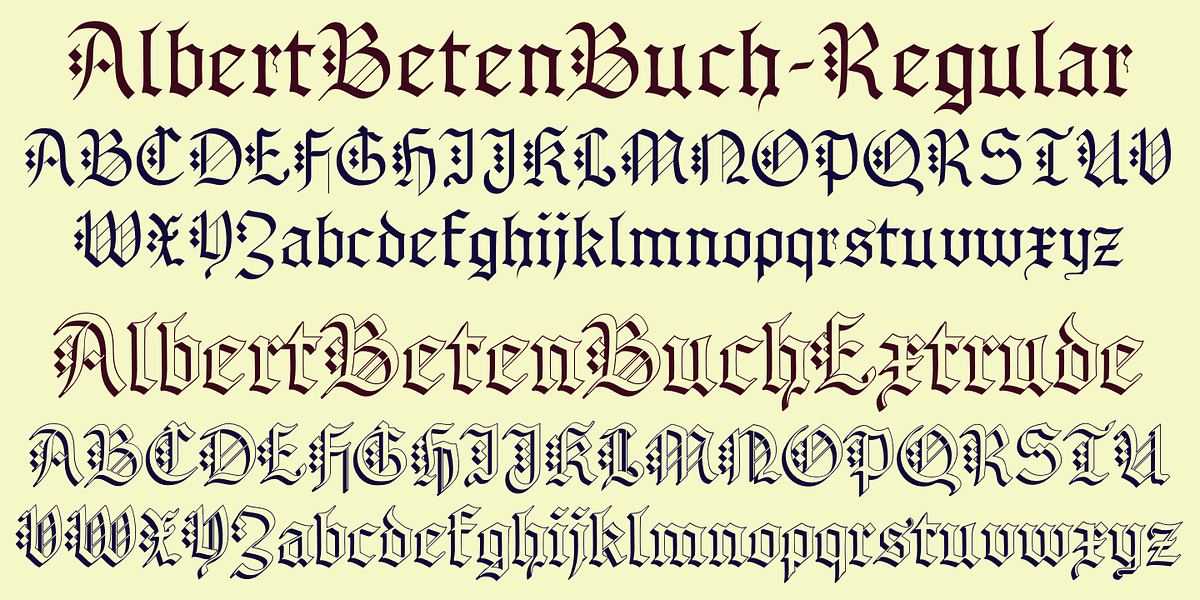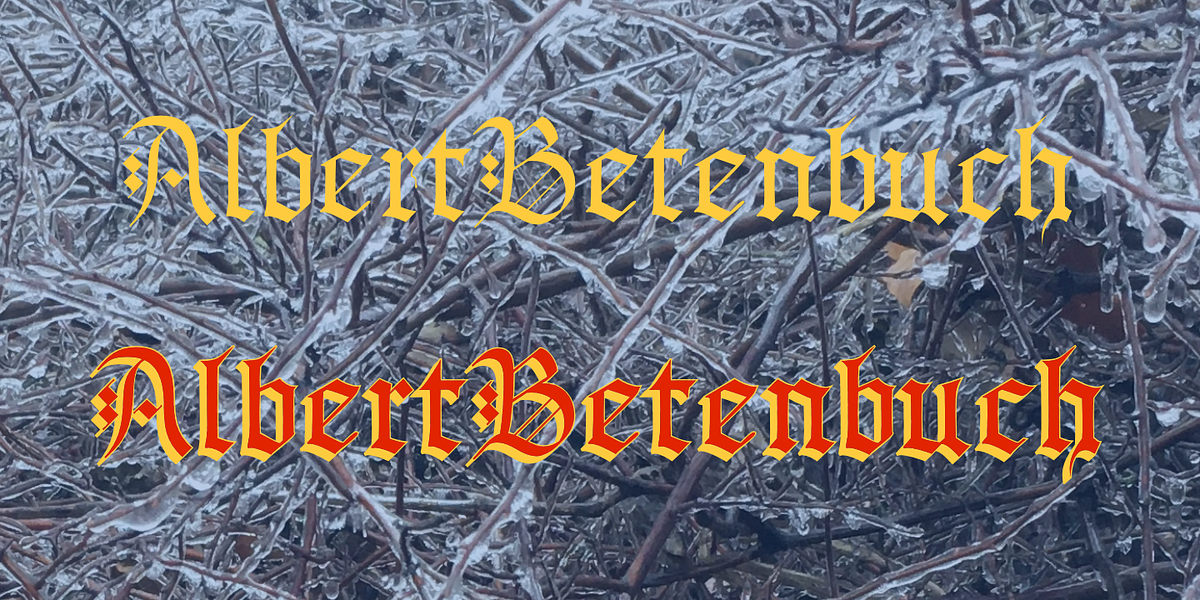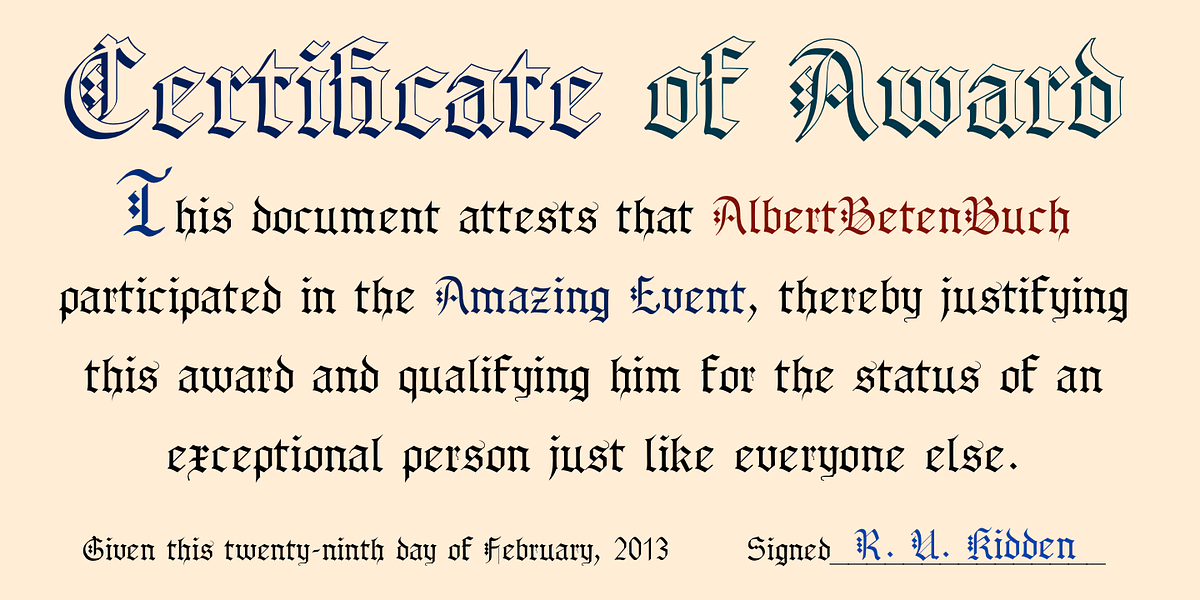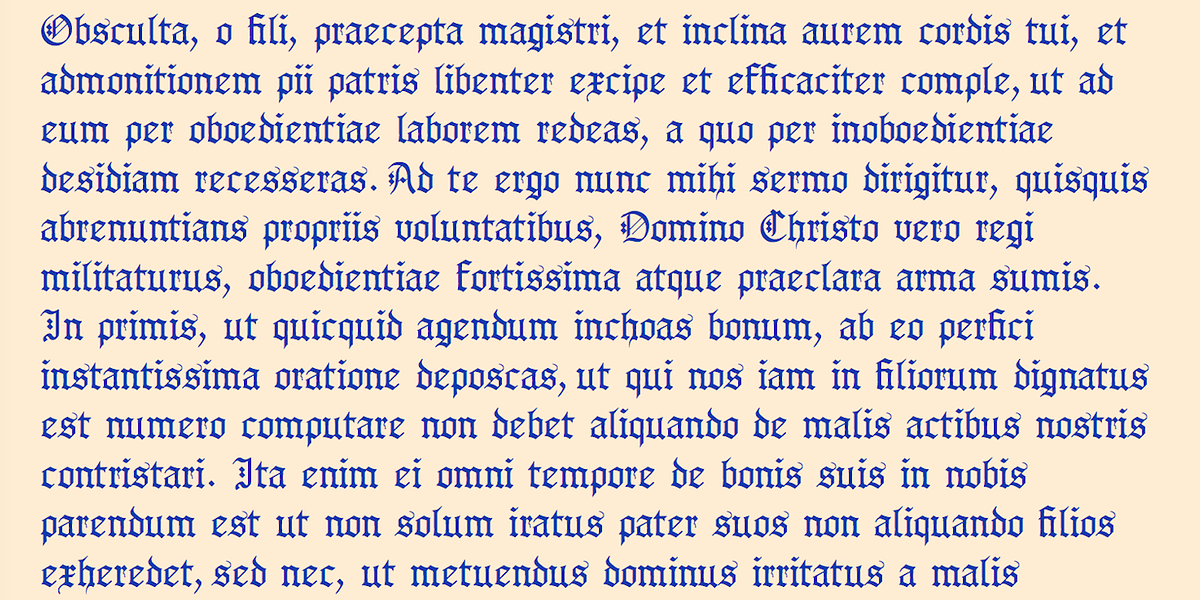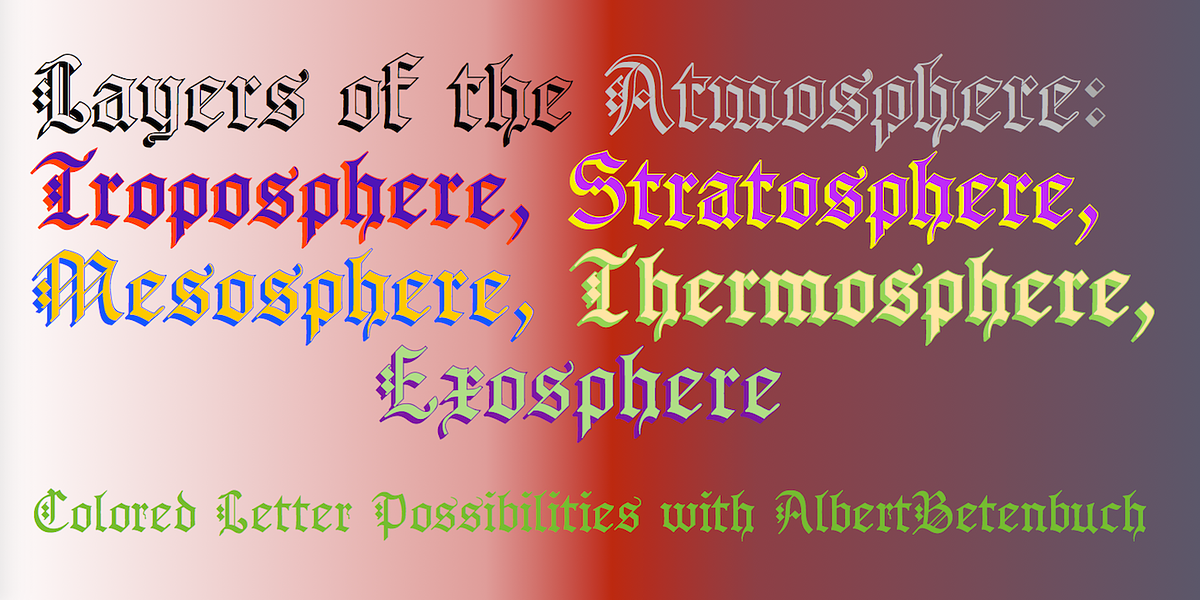
AlbertBetenbuch
AlbertBetenbuch is a blackletter font inspired by the work of Albert Dürer and Arthur Baker's Historic Calligraphic Alphabets. While not a direct recreation, it shares the characteristic zigzag design found in those inspirations. The font features a unique shadowed effect, allowing for layering to create two-colored letters with a three-dimensional appearance.